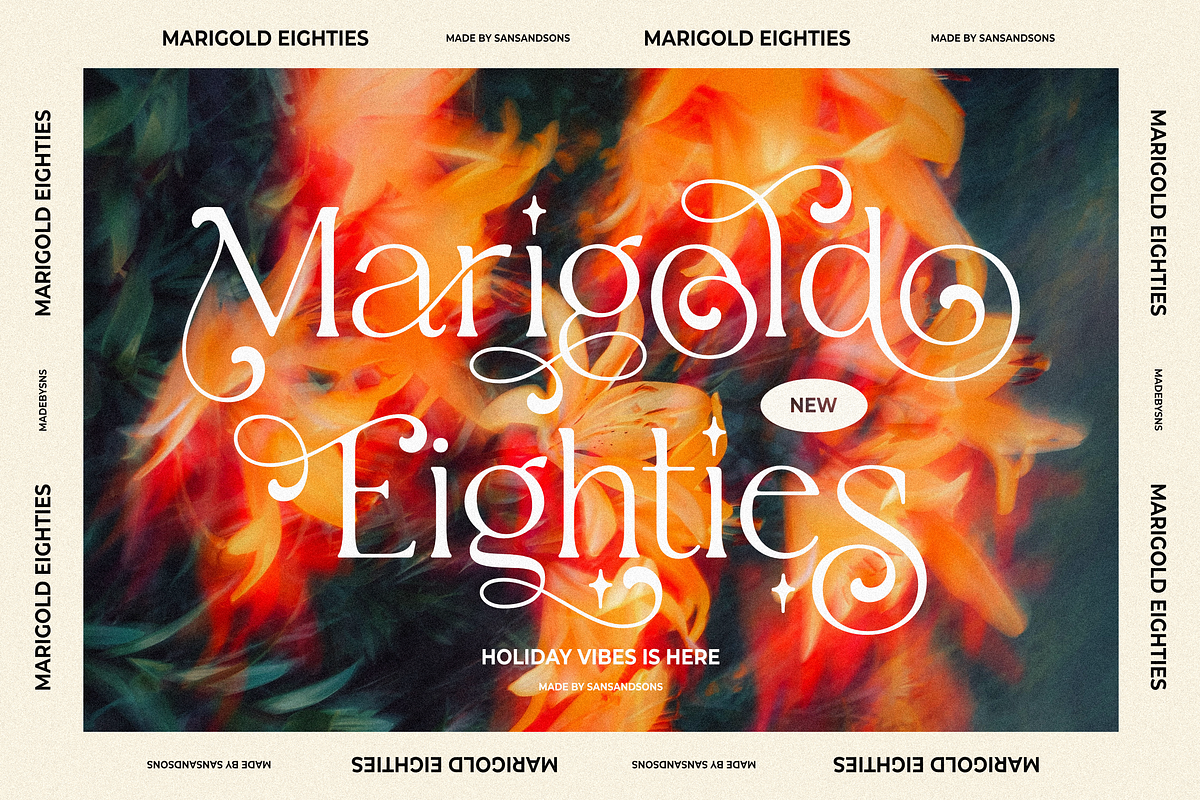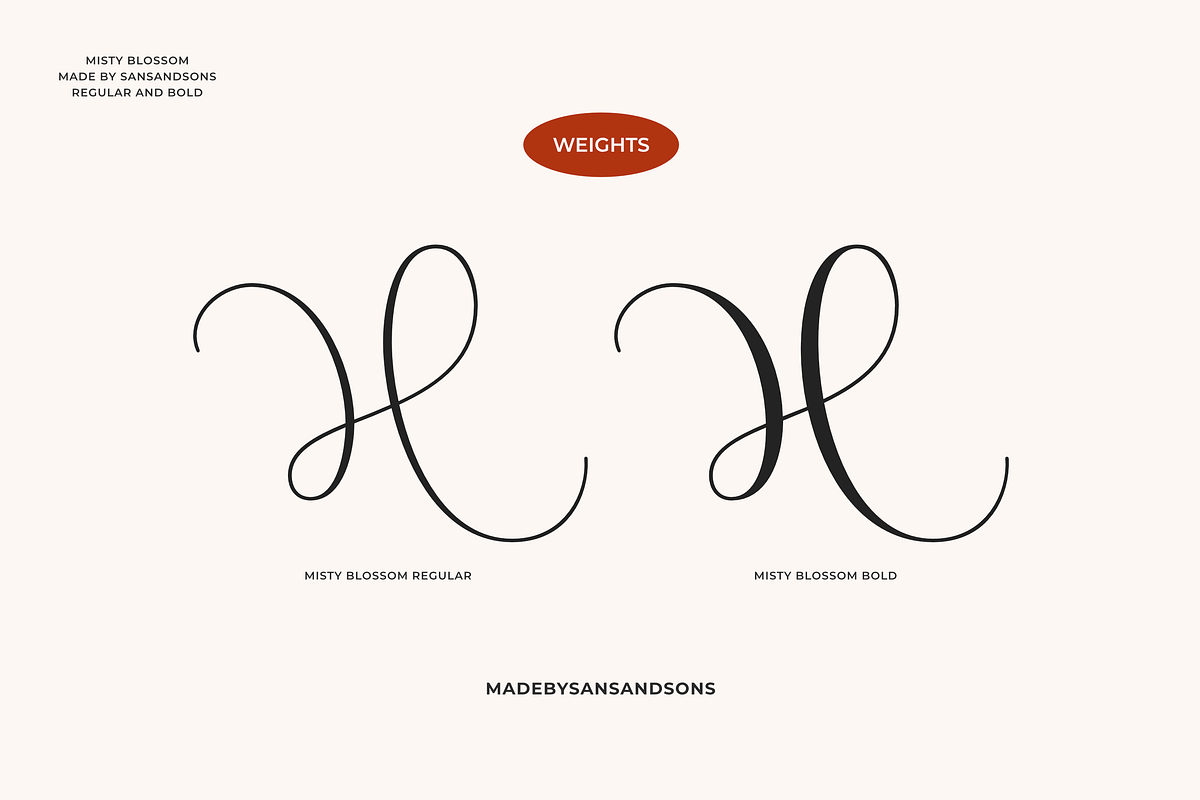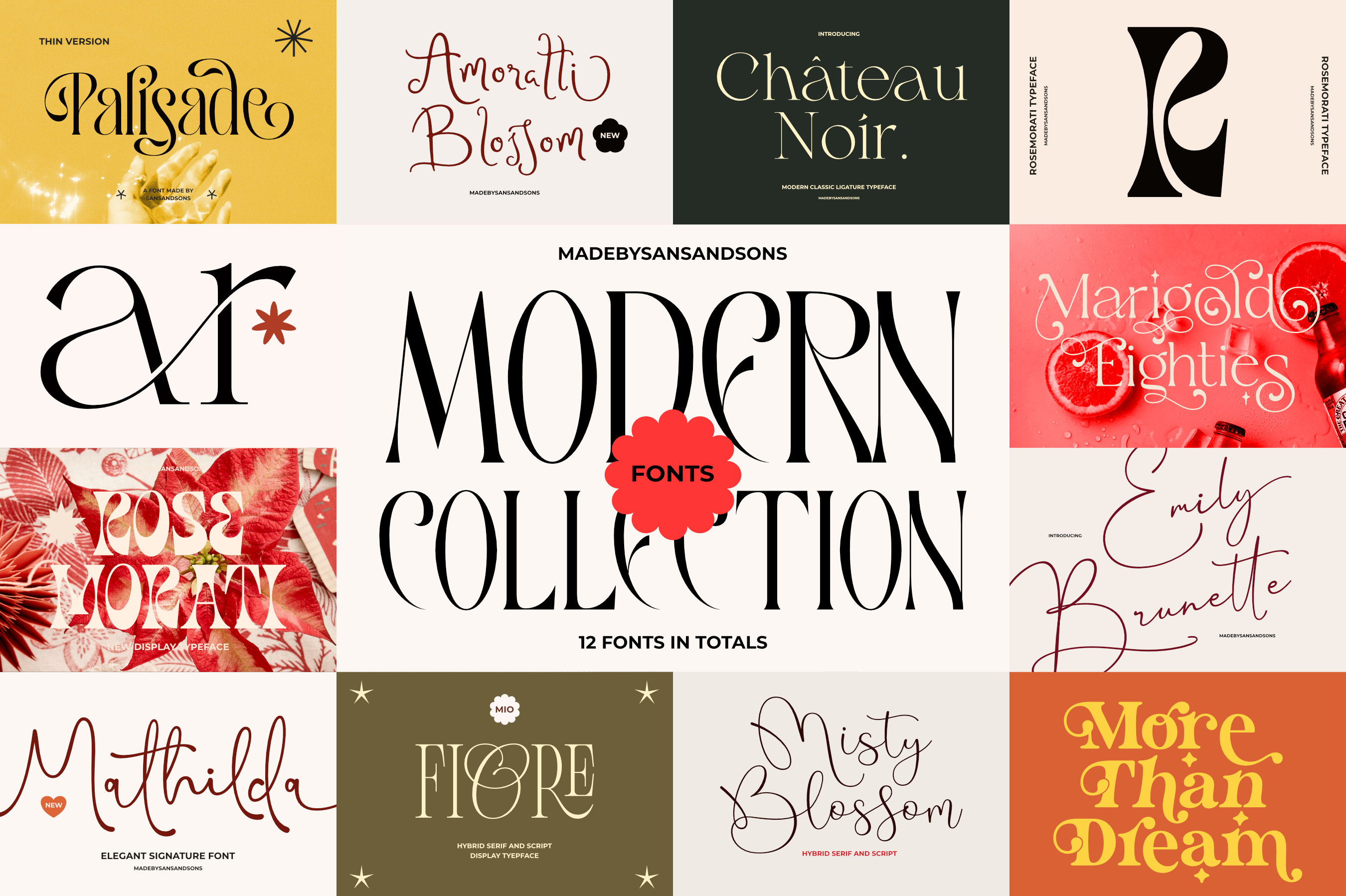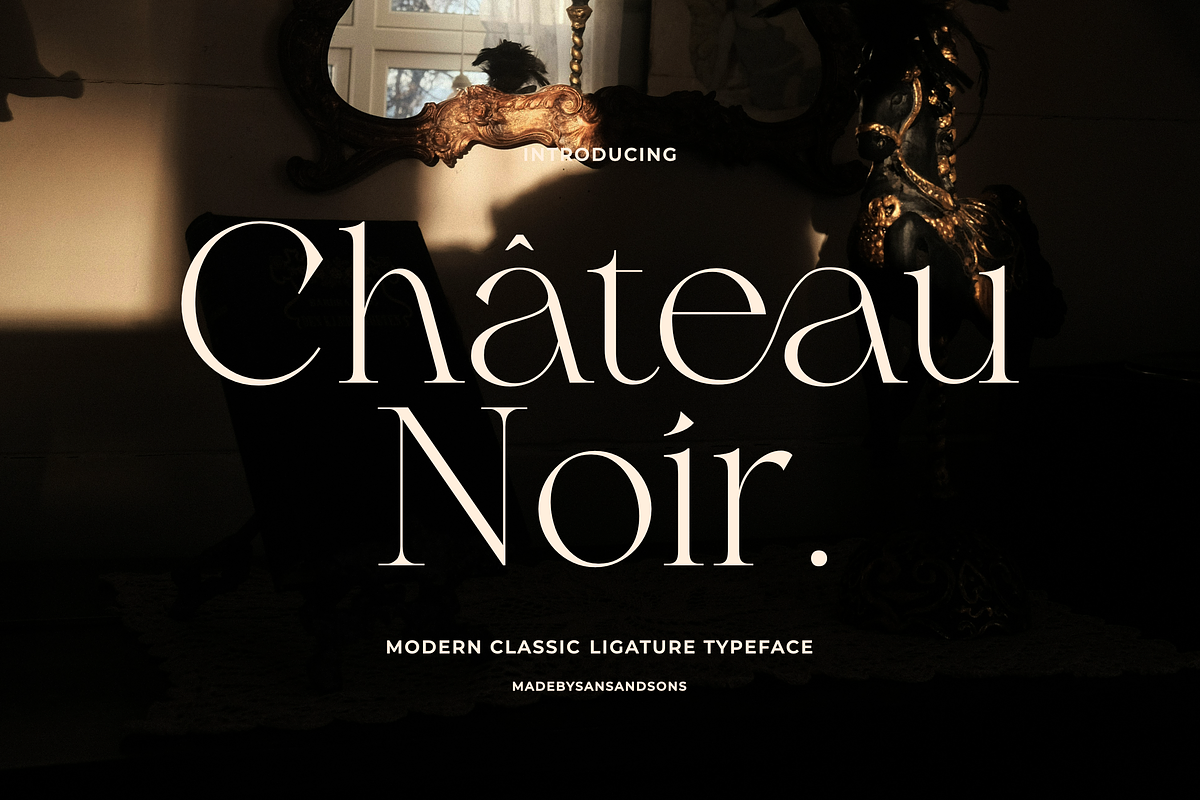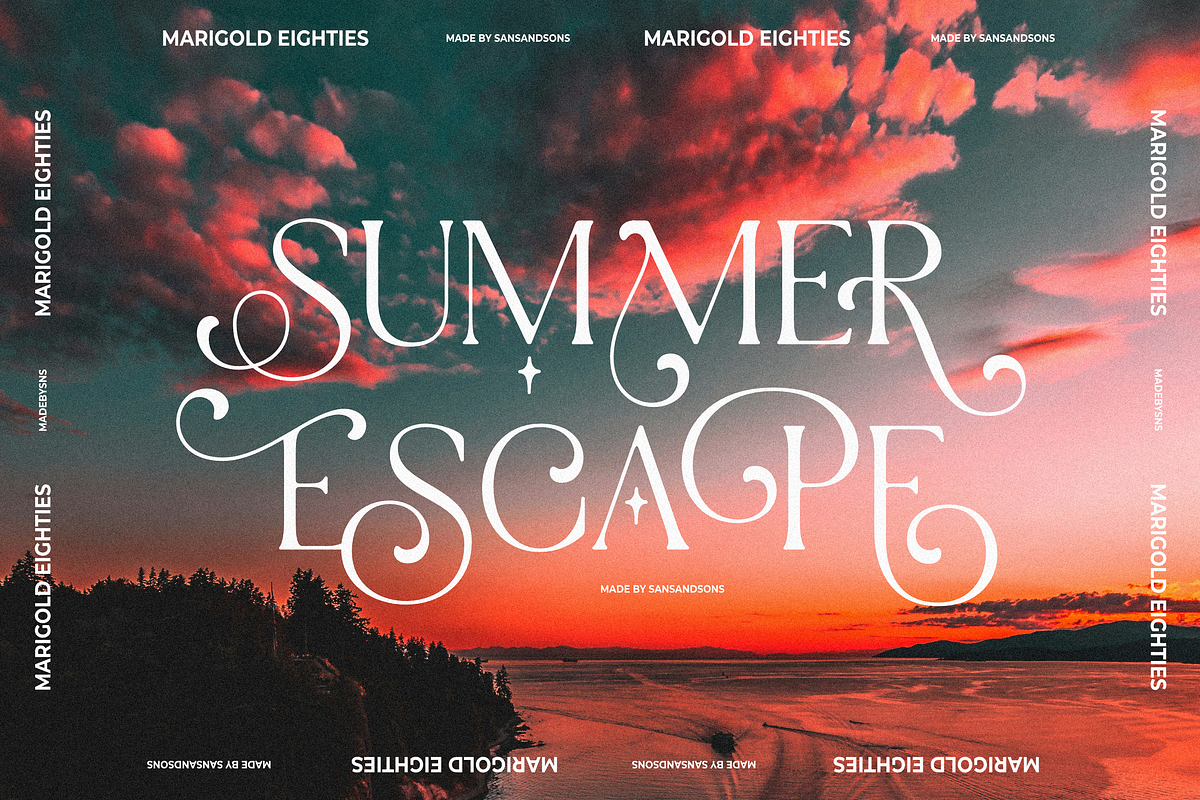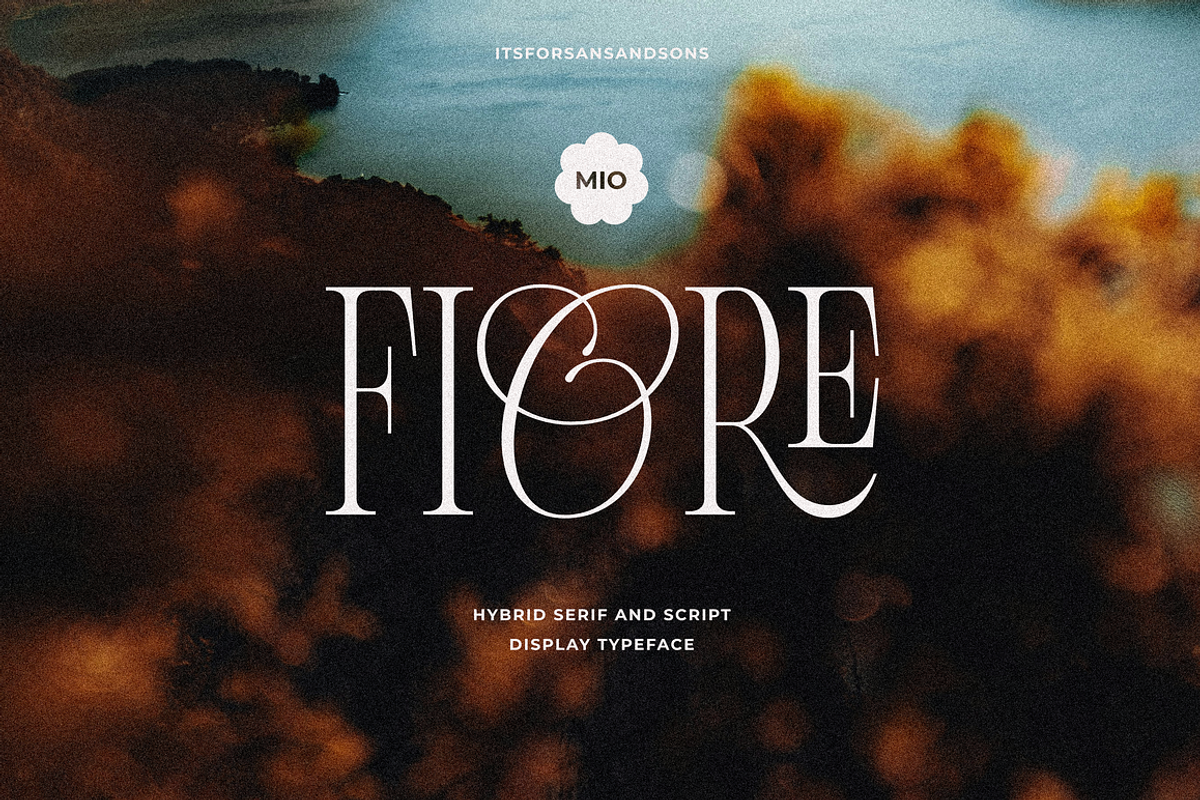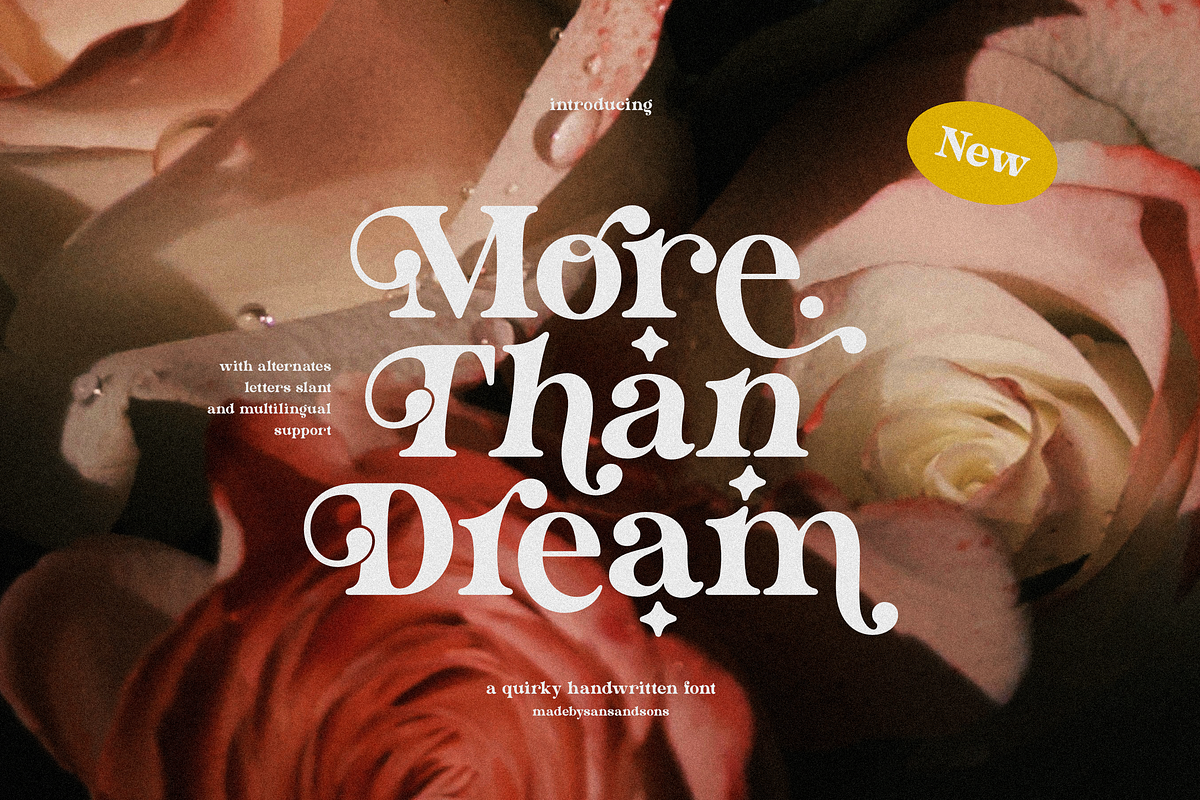
Modern Font Collection
The Modern Font Bundle Collection – a curated mix of 10 typefaces, combining elegant serifs, clean sans-serifs, and dreamy scripts — all in one stylish bundle.
From soft and romantic to bold and editorial, each font is crafted to bring a unique personality to your projects. Whether you're working on branding, logos, packaging, social media, or wedding designs, this bundle is your go-to creative toolkit.
You’ll get 10 unique typefaces (12 fonts total):
- Misty Blossom : https://creativemarket.com/sansandsons/291381382-Misty-Blossom
- More Than Dream : https://creativemarket.com/sansandsons/291342278-More-Than-Dream
- Chateau Noir : https://creativemarket.com/sansandsons/291133332-SNS-Chateu-Noir
- Marigold Eighties : https://creativemarket.com/sansandsons/290747012-Marigold-Eighties
- Palisade Display : https://creativemarket.com/sansandsons/286737339-Palisade-Display-Font
- Rosemorati : https://creativemarket.com/sansandsons/186279368-Rosemorati
- Emily Brunette : https://creativemarket.com/sansandsons/92196497-Emily-Brunette-Signature-Font
- Mathilda : https://creativemarket.com/sansandsons/91887799-Mathilda-Modern-Script
- Amoratti Blossom : https://creativemarket.com/sansandsons/290851909-Amoratti-Blossom
- Fiore : https://creativemarket.com/sansandsons/92040471-Fiore-Elegant-Serif-Script
Why you'll love this bundle:
- 10 unique typefaces (11 fonts total)
- A perfect mix of script, serif & sans-serif
- Versatile styles for any creative need
From bold headlines to handwritten charm, The Modern Font Bundle is here to bring beauty and personality to every project.